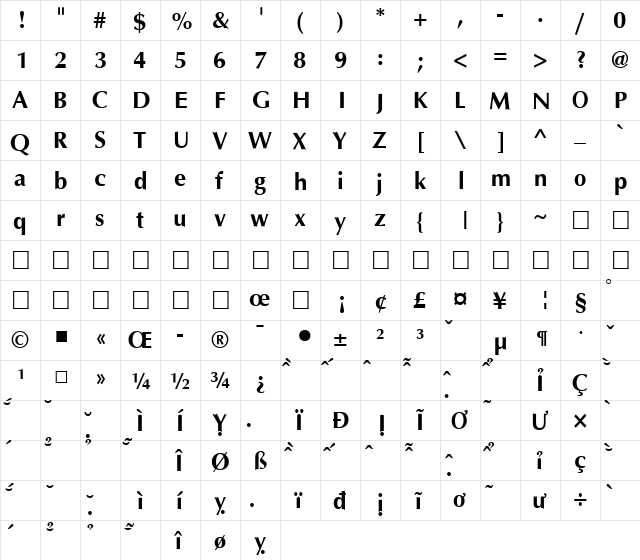
VNI-Aptima Bold Font Preview
VNI-Aptima Bold
Design Context for VNI-Aptima Typeface
VNI-Aptima offers clean, dependable letterforms without strong stylistic allegiance, making it a practical choice for designers who need flexibility. The heavy weight commands attention and anchors typographic hierarchies.